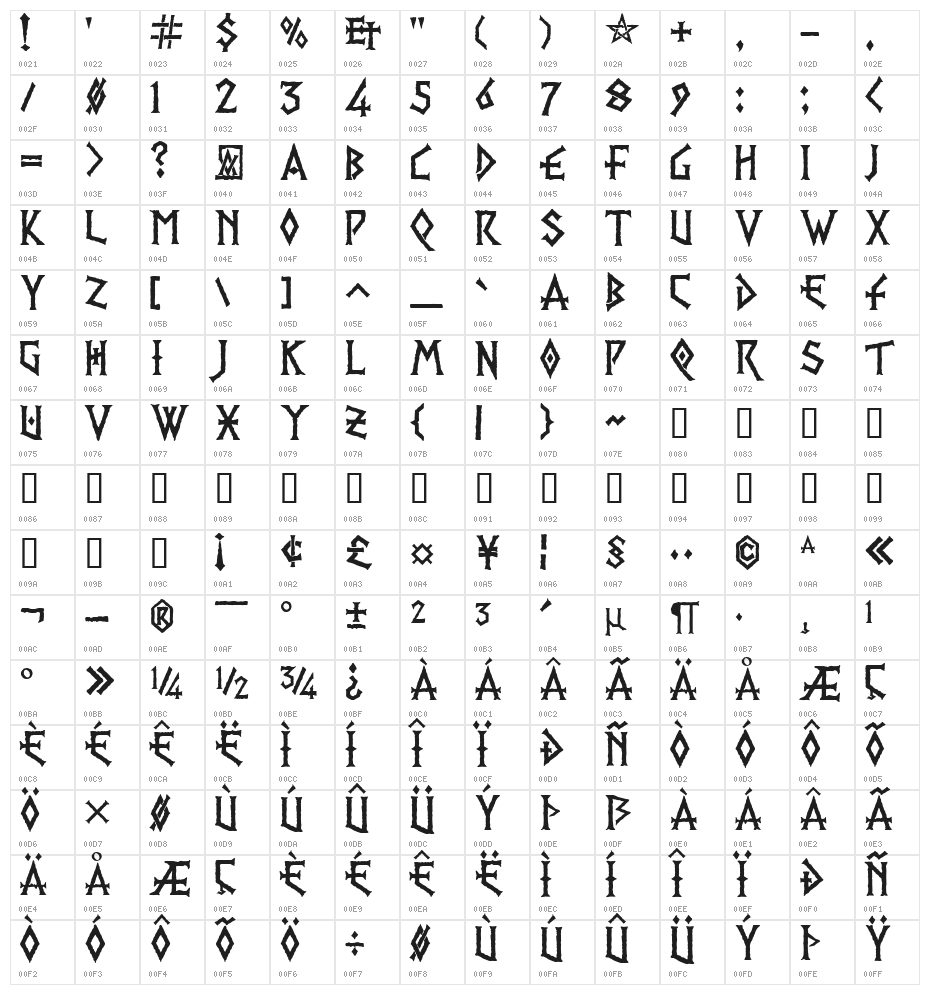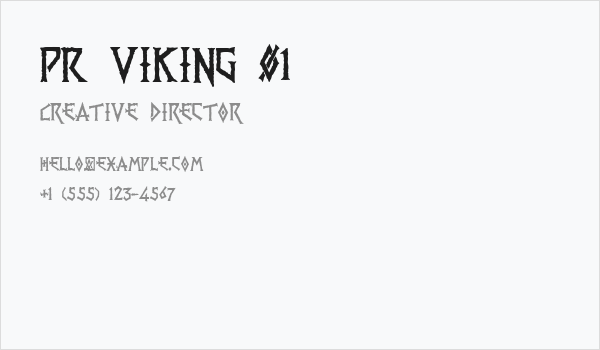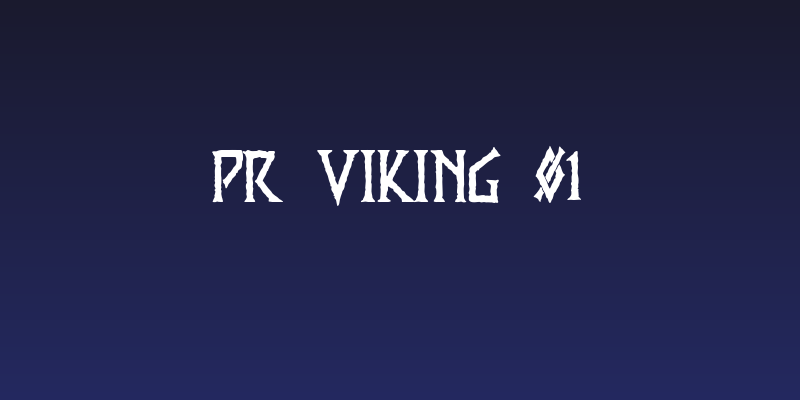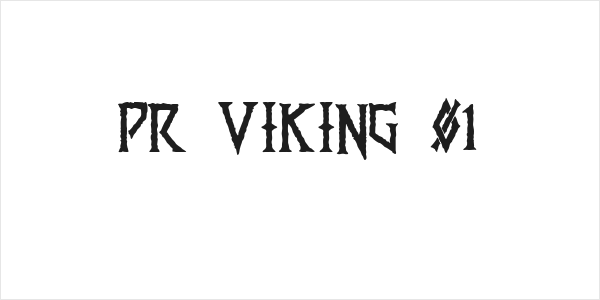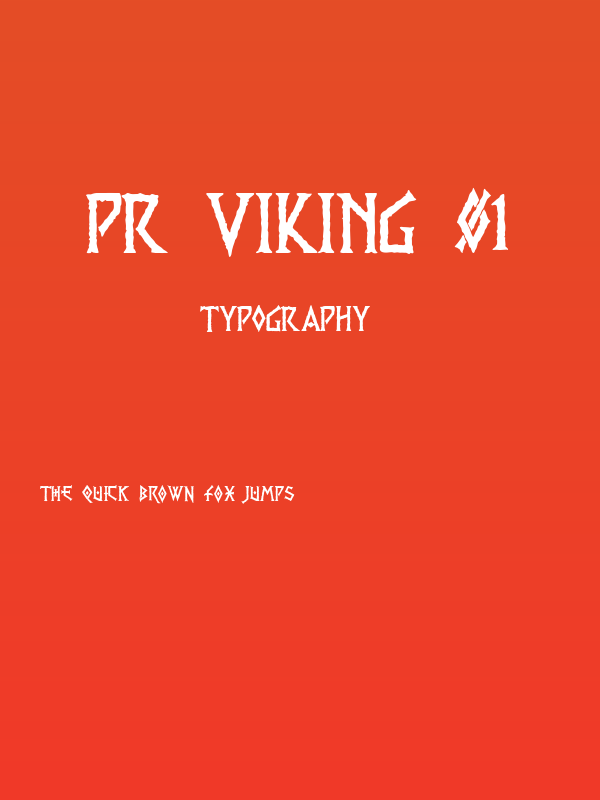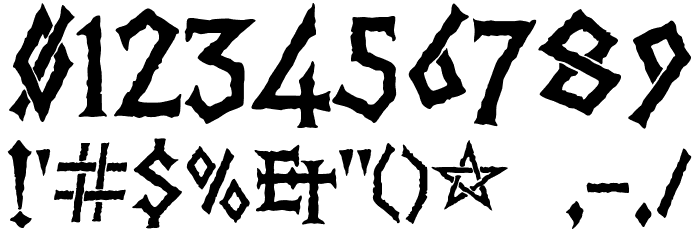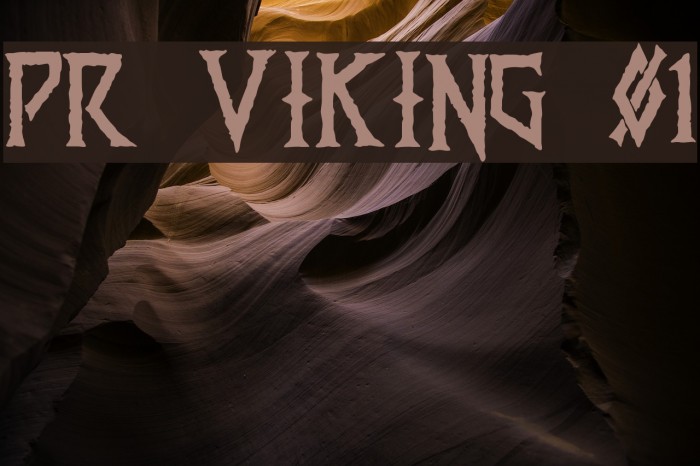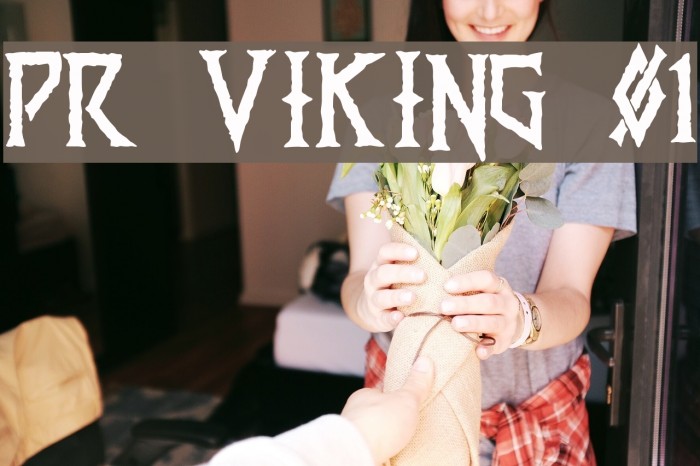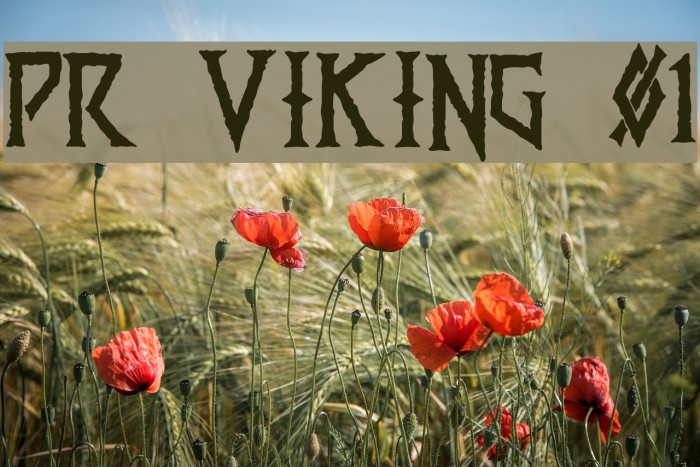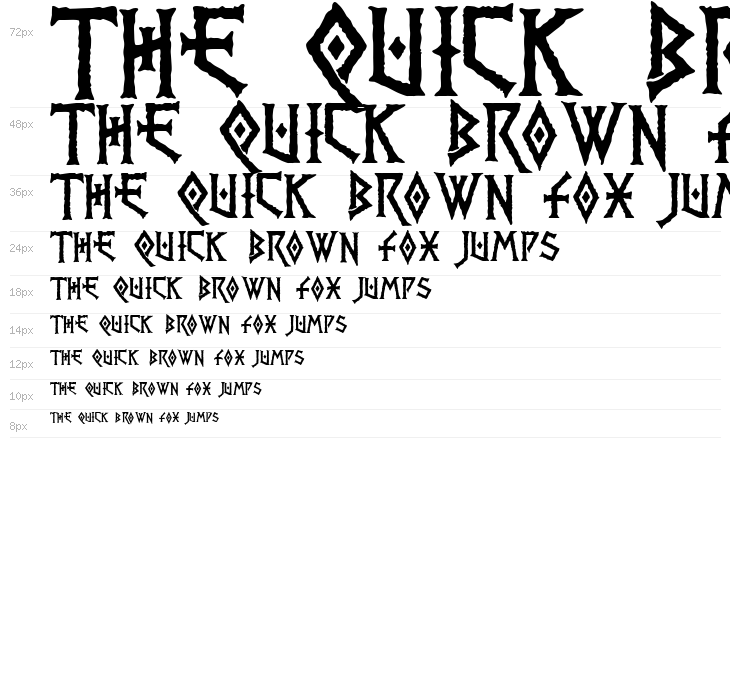
PR Viking 01 Font
PR Viking 01 Description
This font features a rugged, angular design reminiscent of ancient runes and Viking aesthetics. Each character is crafted with sharp, jagged edges and a bold presence, evoking a sense of strength and historical depth. The uppercase and lowercase letters maintain a consistent style, with unique variations that add to the font's distinct character. Numbers and special characters are equally bold and stylized, ensuring a cohesive look across all text elements. The overall design is both decorative and impactful, making it ideal for projects that require a strong, thematic presence.
| Use Case | Headlines, Logos, Themed Designs |
| Proposed Projects | Ideal for themed events, historical posters, game design, and branding that requires a strong, ancient aesthetic. |